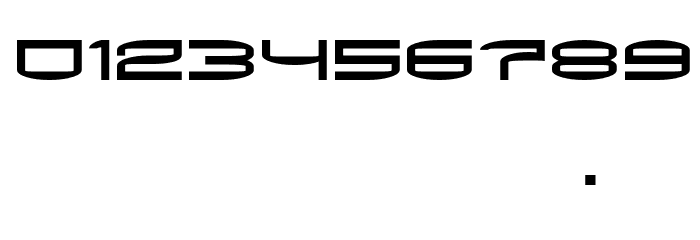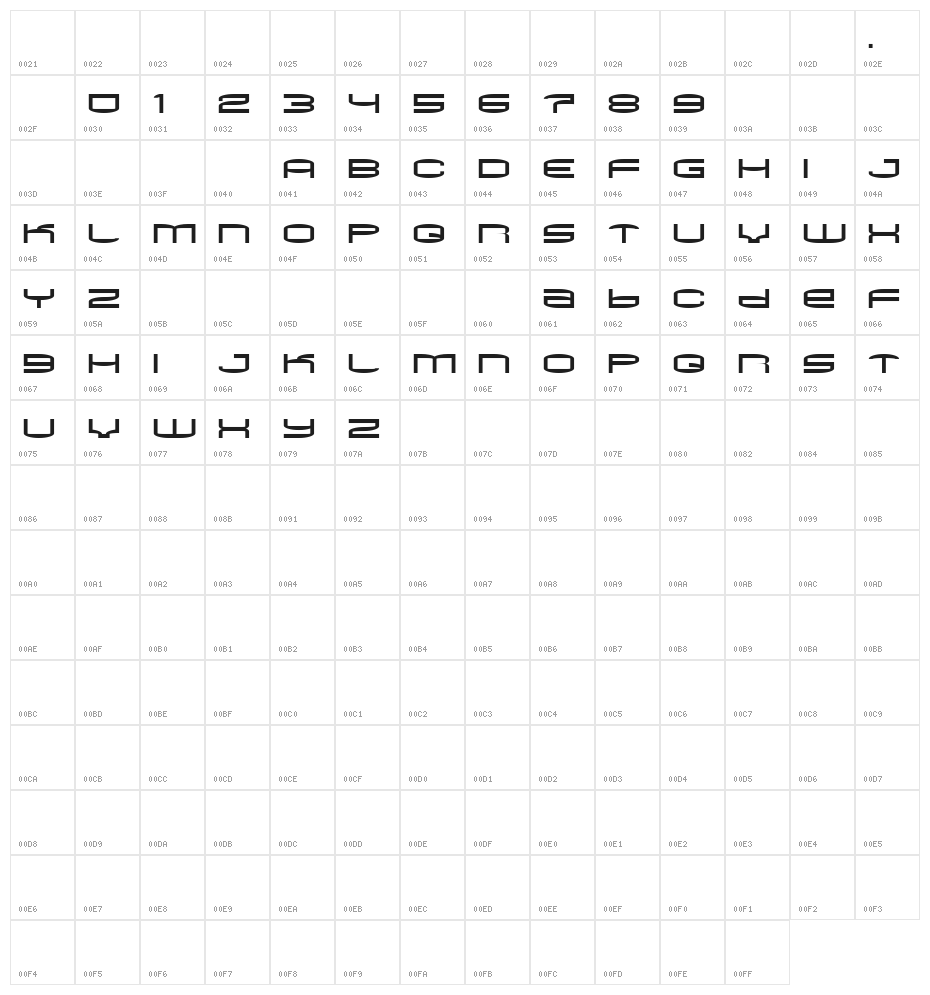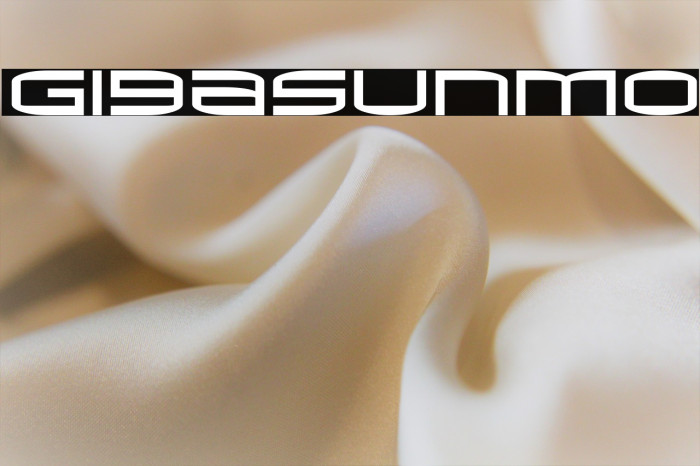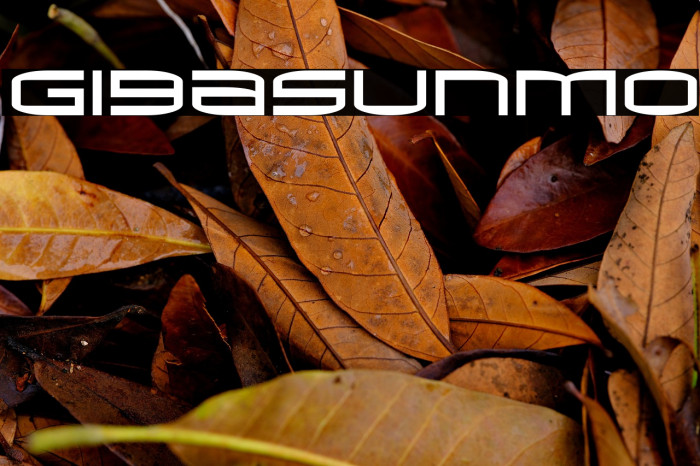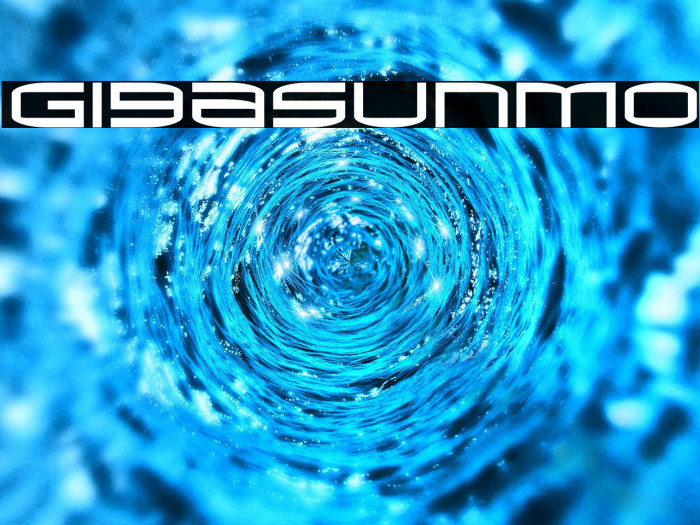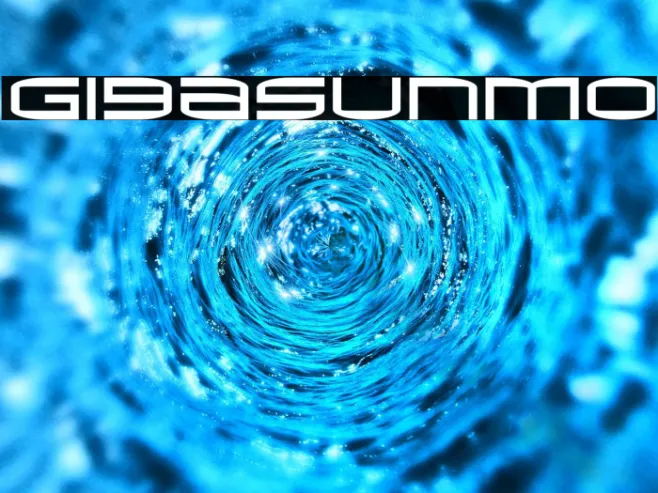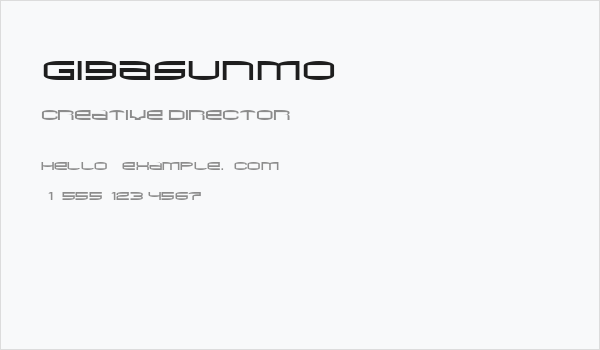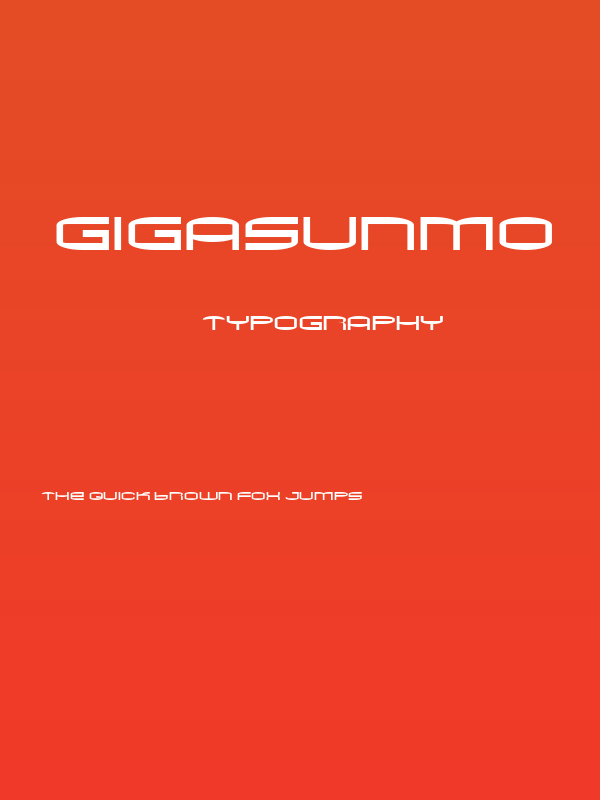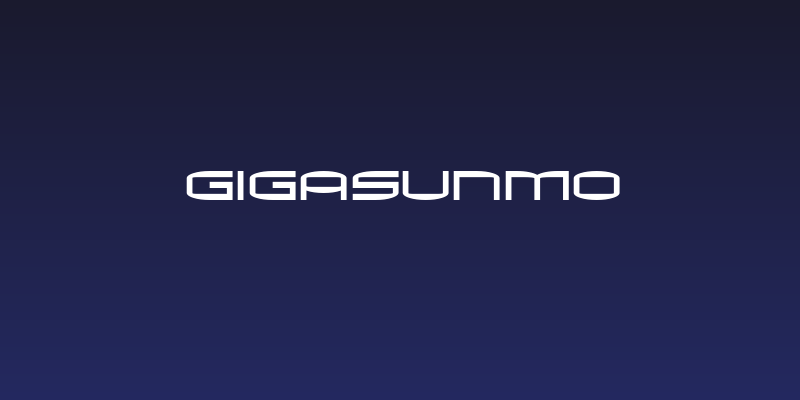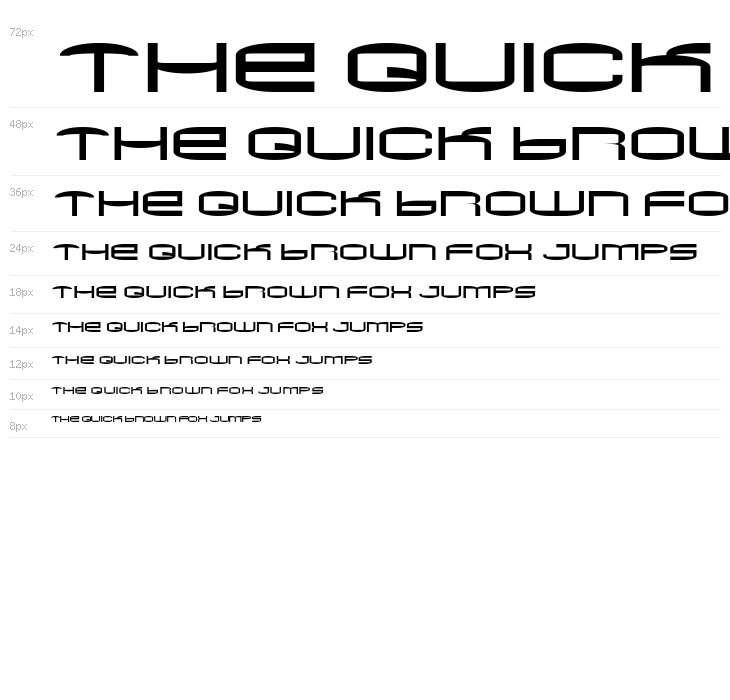
Gigasunmo Font
Gigasunmo Description
This font features a futuristic and geometric design, characterized by its clean lines and angular shapes. The uppercase and lowercase letters maintain a consistent style, with a focus on symmetry and balance. The numbers follow the same aesthetic, ensuring uniformity across all characters. The font's modern appearance makes it suitable for technology-related projects or any design that requires a sleek and contemporary look. Its unique style is eye-catching and memorable, making it ideal for branding or advertising purposes.
Overall StyleFuturistic
Use CaseLogos, Headlines, Branding
Proposed ProjectsIdeal for technology branding, futuristic designs, advertising, and modern logos.